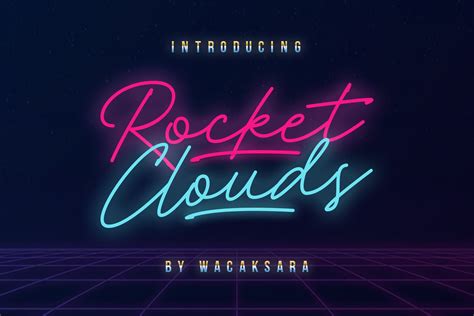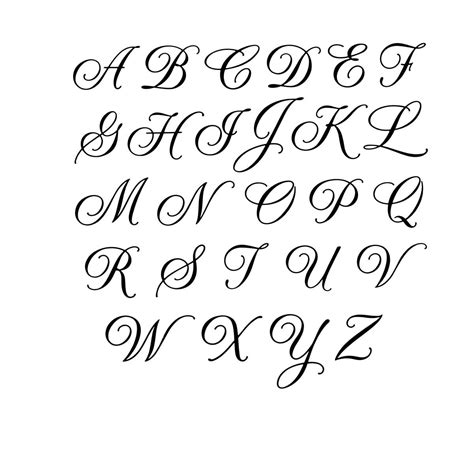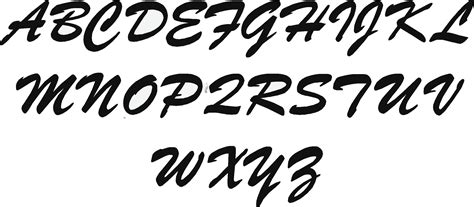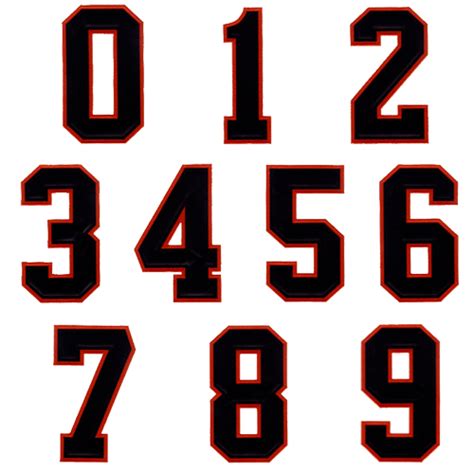
Block Script Font Free : 10 Free Fonts Script Block Images - Handwritten Wedding ... / One is formal script feel script designed by alejandro paul is a typical font family in cursive script writing.. Script is a product of micrologic software, inc. On this page you can watch preview script category fonts from our designers. There are 470 script block font for sale on etsy, and they cost $4.66 on average. Are you designing something that is required to make a bold statement? Script fonts are based on real handwriting styles as they were written with a brush or a calligraphy pen.
Every font is free to download! As the designs of script fonts are based on the fluidity of real handwriting, they can add a personal touch to pretty much any design, especially one that involves typography. It has uppercase, lowercase, numerals, punctuation & multingual characters, also includes some opentype features like ligatures, stylistic alternate characters, & swashes. So you can use these fonts for your logos, clothing, banners, posters, or even youtube thumbnails! Script stylish handwritten branding handwriting fashion casual magazine logo bold modern lettering handmade display brush wedding poster packaging ligatures headline feminine elegant cursive urban hipster. Download free fonts for windows and macintosh. Different fonts can be used and look best on different uses. Cursive · script · feminine · masculine · formal · informal · messy · neat · scribbled · brushed · graffiti · … theme. Script fonts are created based on the varied and fluid stroke in handwriting. Free fonts often have not all characters and signs, and have no kerning pairs (avenue ↔ a venue, tea ↔ t ea). Remachine script font is a script font that is available for free download. 74 professional block script fonts to download please note: Votes, rated based on results identification.
Our site carries over 30,000 pc fonts and mac fonts. The most common script block font material is metal. As the designs of script fonts are based on the fluidity of real handwriting, they can add a personal touch to pretty much any design, especially one that involves typography. Bickley script plain:1136451247 full font name: We have prepared an amazing collection of free script fonts for your business cards, flyers etc.
Free download of watermelon script font. Lobster is blocky and bold, pacifico is loopy and rounded, and tangerine is more typically classic and elegant. Home › script › brush › oraqle script font free. Script is a product of micrologic software, inc. Script stylish handwritten branding handwriting fashion casual magazine logo bold modern lettering handmade display brush wedding poster packaging ligatures headline feminine elegant cursive urban hipster. Archive of freely downloadable fonts. We have 670 free blocky fonts to offer for direct downloading · 1001 fonts is your favorite site for free fonts since 2001. If you want to create professional printout, you should consider a commercial font. On this page you can watch preview script category fonts from our designers. ✓ click to find the best 442 free fonts in the block style. Download 10,000 fonts with one click for $19.95. As the designs of script fonts are based on the fluidity of real handwriting, they can add a personal touch to pretty much any design, especially one that involves typography. There are 470 script block font for sale on etsy, and they cost $4.66 on average.
Oraqle script is available with many variations and extra swashes. As the designs of script fonts are based on the fluidity of real handwriting, they can add a personal touch to pretty much any design, especially one that involves typography. Great fonts all fonts awesome fonts handwritten fonts script fonts calligraphy fonts commercial use fonts modern script font signature fonts. We have 514 free blocky fonts to offer for direct downloading · 1001 fonts is your favorite site for free fonts since 2001. Script stylish handwritten branding handwriting fashion casual magazine logo bold modern lettering handmade display brush wedding poster packaging ligatures headline feminine elegant cursive urban hipster.